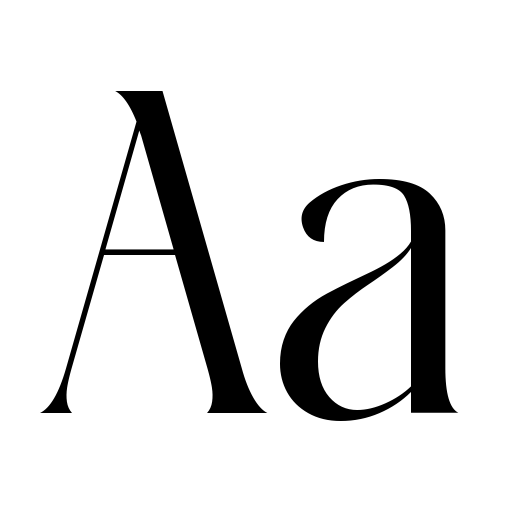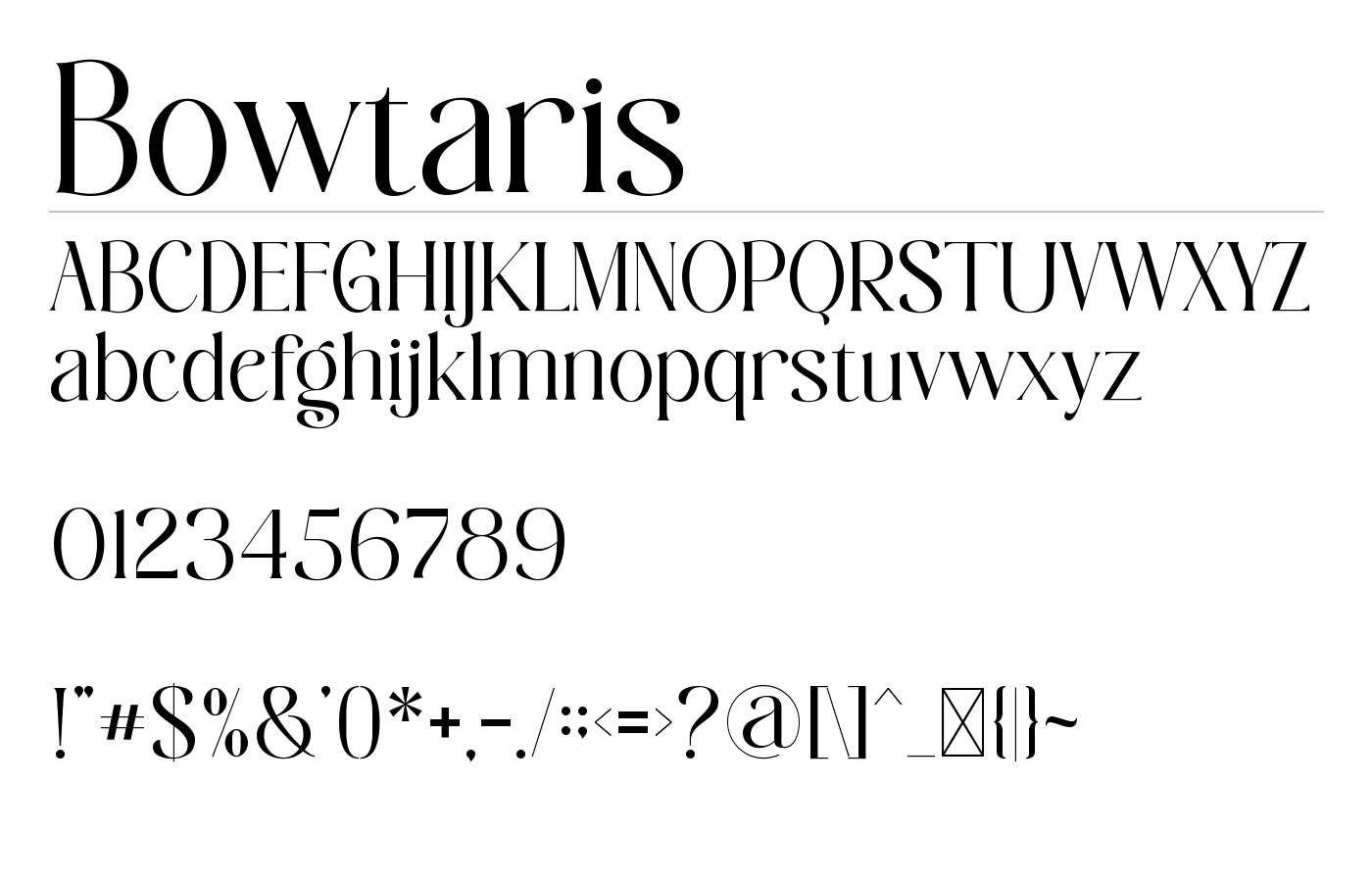
Bowtaris is an elegant serif font that blends high contrast thin and thick strokes with a tall, refined structure, creating a sophisticated and modern look. Its sharp, delicate serifs and distinctive letterforms offer a luxurious yet approachable style, ideal for fashion branding, editorial headlines, and upscale packaging. This font works beautifully where a stylish, classic feel with contemporary flair is desired, bringing a sense of grace and refinement to any design.
About Bowtaris Font